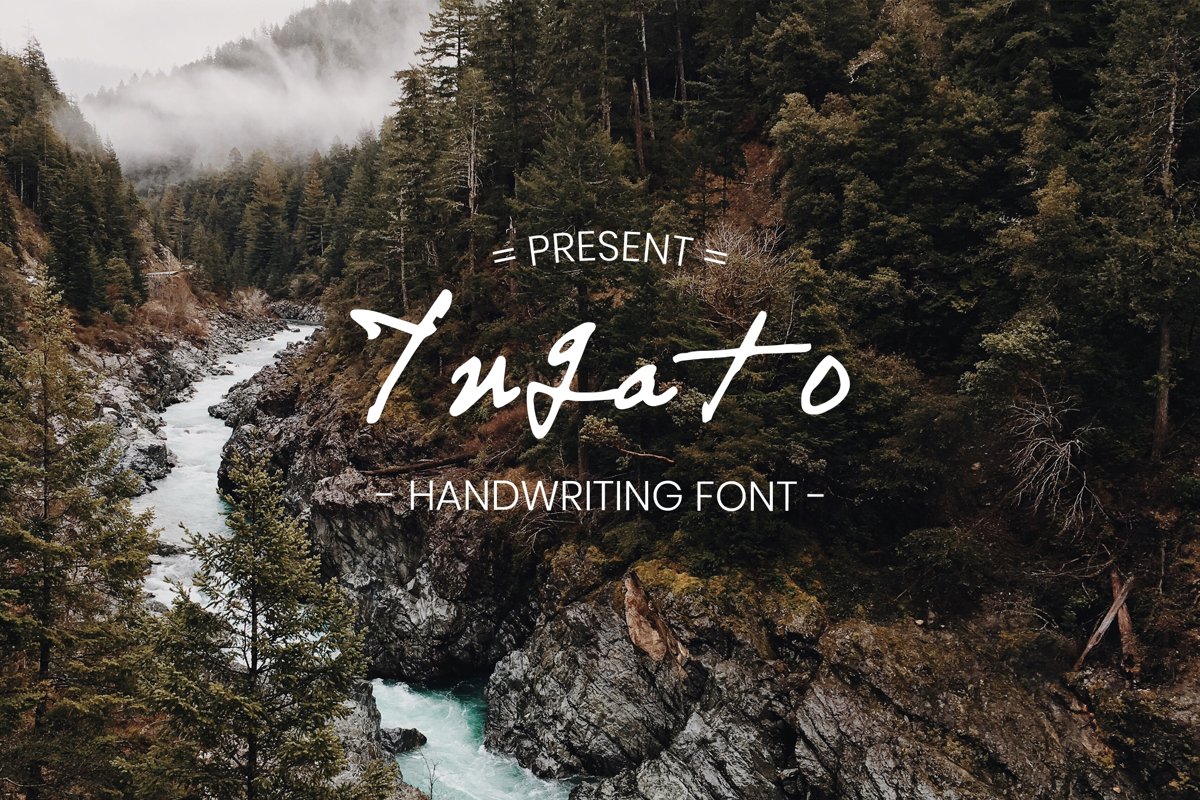
Yuqato Handwriting Font
Yuqato is a Handwriting font made by original handwriting. This font is perfect for making your set
of apparel, T-shirt, Hoodie, quotes, product packaging, brand, logo, blog posts, greeting cards, labels,
posters, wall art, Company profile, etc.